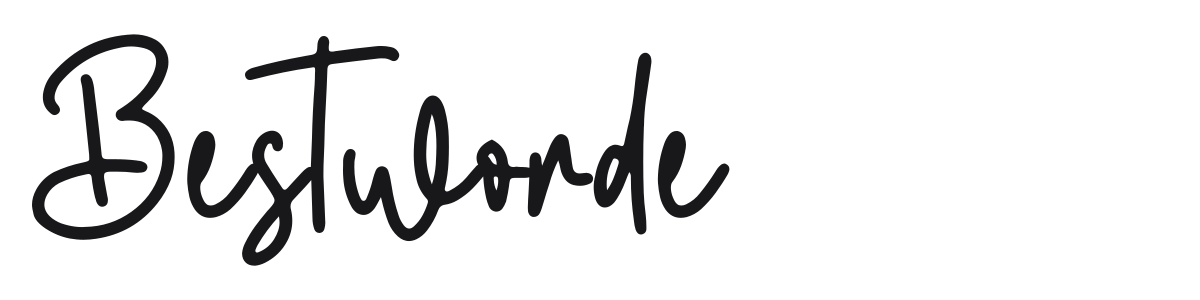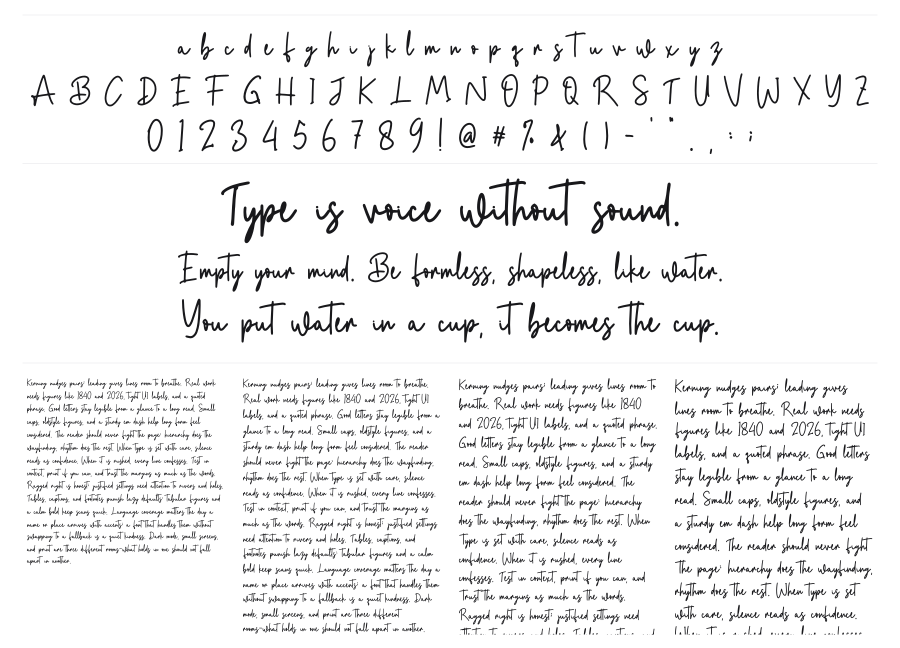
Bestworde
by Letterafa Studio
Bestworde is a casual connected script with a relaxed, pen-written flow and smooth linking strokes. The low stroke contrast and natural rhythm give it an easygoing warmth that works across lifestyle branding, packaging, and social media graphics. It reads as genuinely handwritten without feeling rough or unpolished.